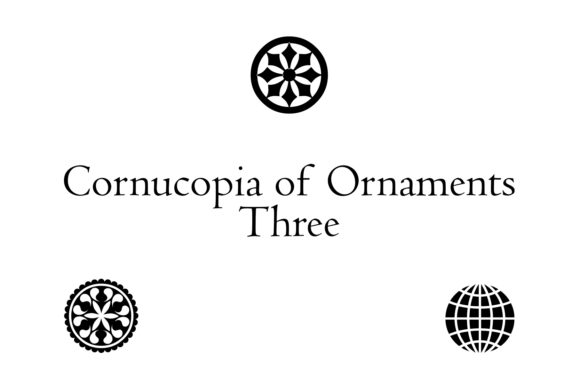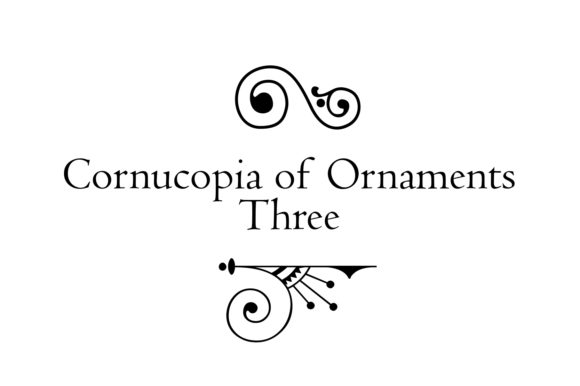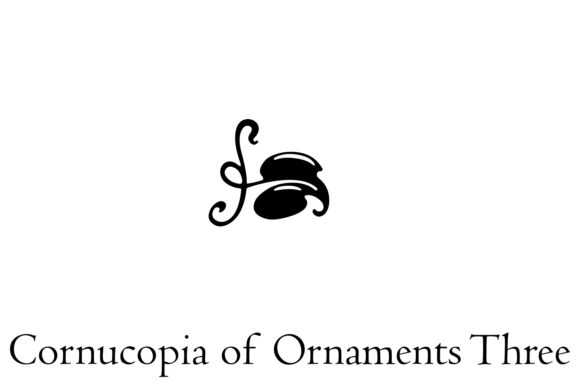
Cornucopia of Ornaments Three Font: A Treasure Trove for Designers and Crafters
Are you a designer or crafter looking for a unique and versatile set of ornaments and dingbats to elevate your projects? Look no further than the Cornucopia of Ornaments Three Font. This exciting new release is a comprehensive collection of decorative elements, carefully crafted to add a touch of elegance and whimsy to any design.
The Cornucopia of Ornaments Three: A Set of Ornaments and Dingbats, Ready to Use
The Cornucopia of Ornaments Three is a set of ornaments and dingbats, ready to use in a variety of projects. With its vast array of decorative elements, this font is perfect for designers and crafters who want to add a personal touch to their work. From festive holiday designs to elegant wedding invitations, the Cornucopia of Ornaments Three Font has something for everyone.
What to Expect from the Cornucopia of Ornaments Three Font
The Cornucopia of Ornaments Three Font is a treasure trove of decorative elements, featuring:
- Intricate Ornaments: Delicate and detailed ornaments, perfect for adding a touch of luxury to your designs.
- Dingbats: A collection of dingbats, including stars, flowers, and other shapes, to add visual interest to your projects.
- Frames and Borders: Elegant frames and borders, ideal for creating beautiful certificates, invitations, and more.
- Icons and Symbols: A range of icons and symbols, including animals, objects, and abstract shapes, to add a personal touch to your designs.
Why Designers and Crafters Love the Cornucopia of Ornaments Three Font
The Cornucopia of Ornaments Three Font has quickly become a favorite among designers and crafters, and for good reason. Here are just a few reasons why:
- Versatility: With its vast array of decorative elements, the Cornucopia of Ornaments Three Font can be used in a wide range of projects, from digital designs to handmade crafts.
- Unique and Exclusive: The Cornucopia of Ornaments Three Font is a unique and exclusive collection, ensuring that your designs stand out from the crowd.
Using the Cornucopia of Ornaments Three Font in Your Projects
The Cornucopia of Ornaments Three Font is incredibly versatile, and can be used in a variety of projects, including:
- Digital Designs: Use the font to create stunning digital designs, including social media graphics, blog posts, and email newsletters.
- Printed Materials: Add a touch of elegance to your printed materials, including business cards, brochures, and flyers.
- Crafting Projects: Use the font to create beautiful handmade crafts, including cards, gift tags, and scrapbook pages.
Tips and Tricks for Getting the Most from the Cornucopia of Ornaments Three Font
To get the most from the Cornucopia of Ornaments Three Font, try the following tips and tricks:
- Experiment with Different Sizes and Colors: Don’t be afraid to experiment with different sizes and colors to add visual interest to your designs.
- Combine with Other Fonts: Combine the Cornucopia of Ornaments Three Font with other fonts to create unique and eye-catching designs.
- Use as a Background Element: Use the font as a background element to add texture and interest to your designs.